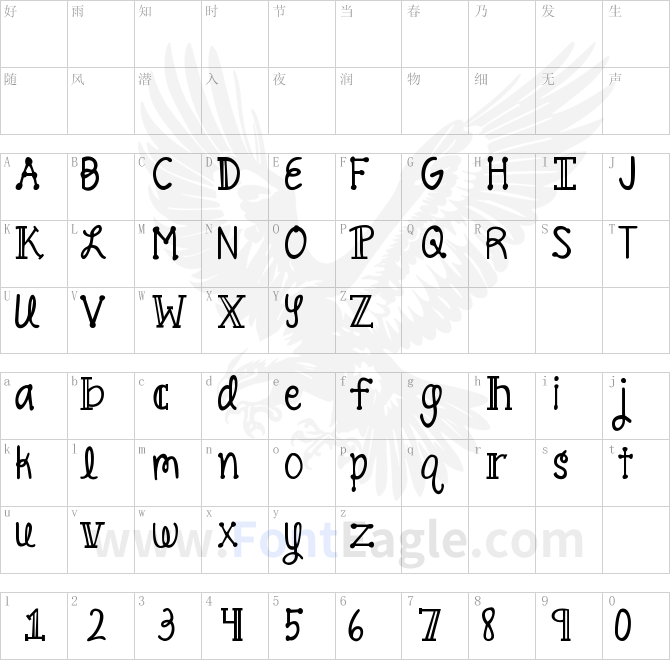
Pineapple-Delight is a great font, widely used in graphic design, single-page menu design, poster design and other fields, and is deeply loved by designers.Pineapple-Delight download.